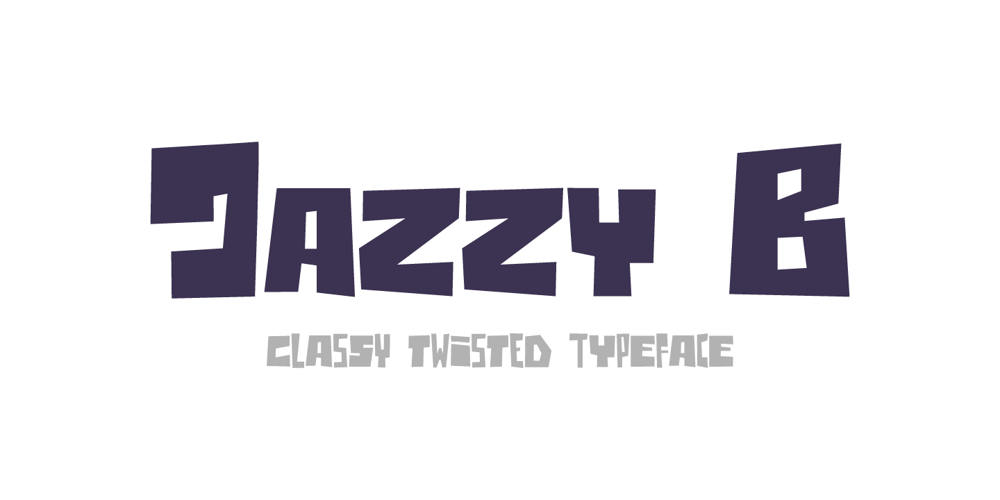
Jazzy B Font Family was designed by Oleg Stepanov and published by Oleg Stepanov. Jazzy B contains 3 styles and family package options. If you are looking for a simple, twisted and funny font with lack of readability, you should take a look at Jazzy B typeface. The family contains 2 styles: Thin and Bold. Jazzy B Regular combines these two style, so you can easily create catchy captions for music posters, children books and video games.